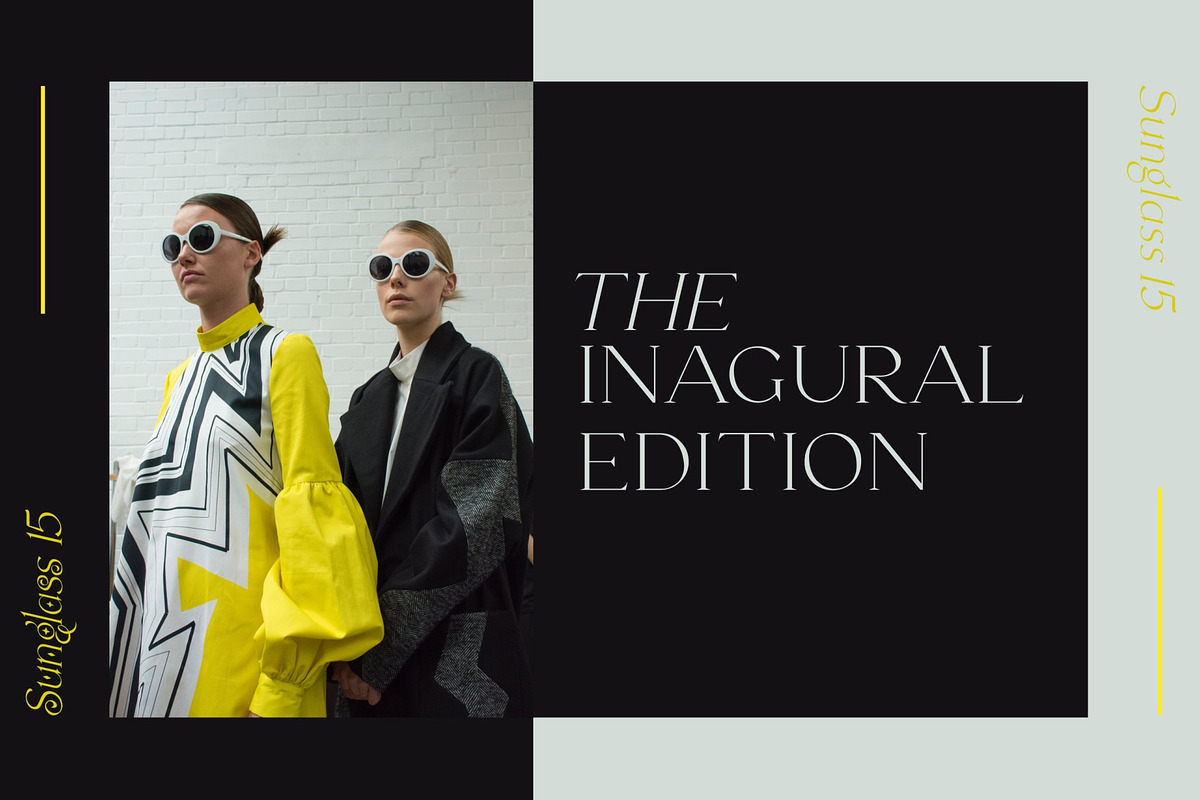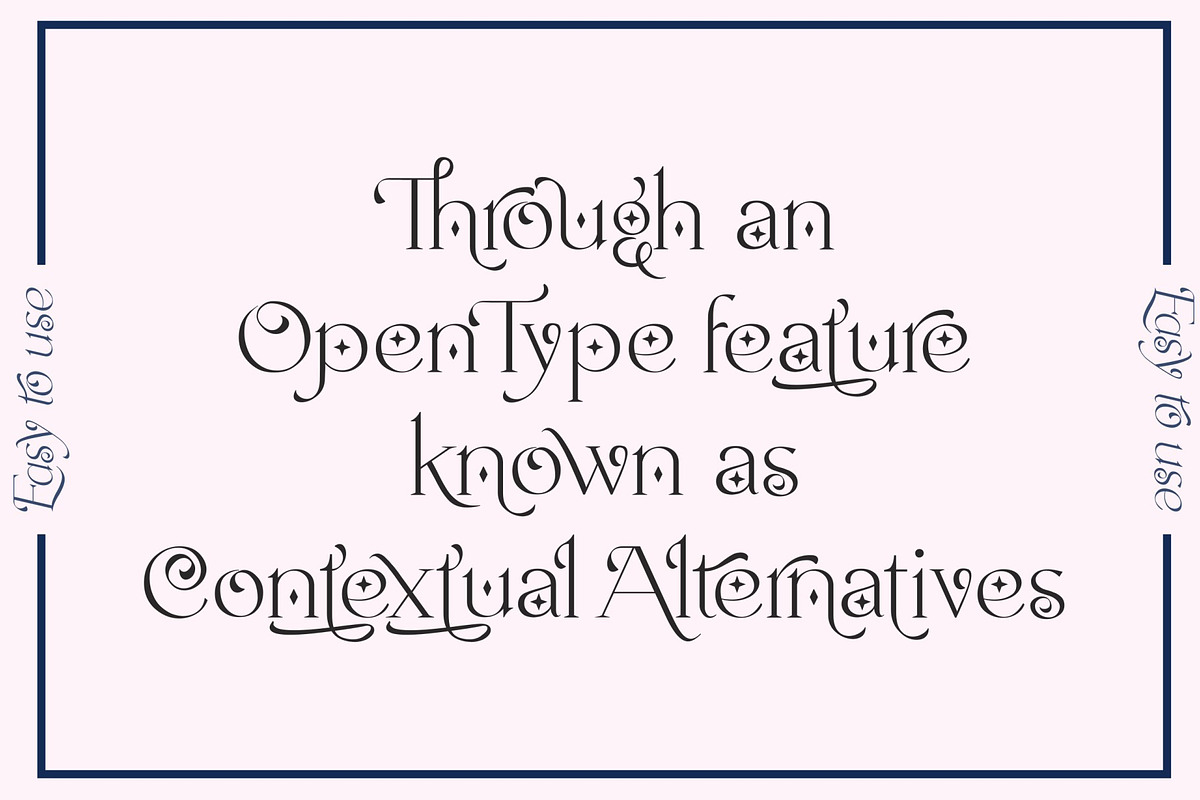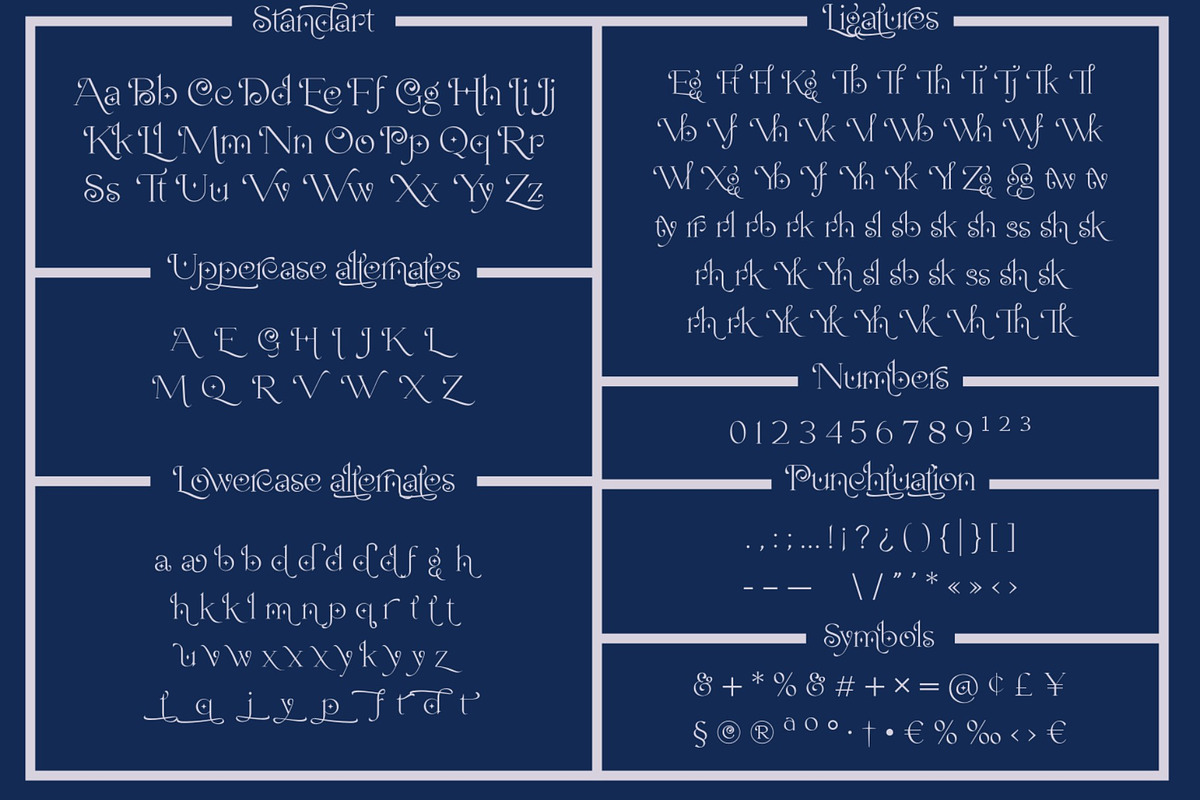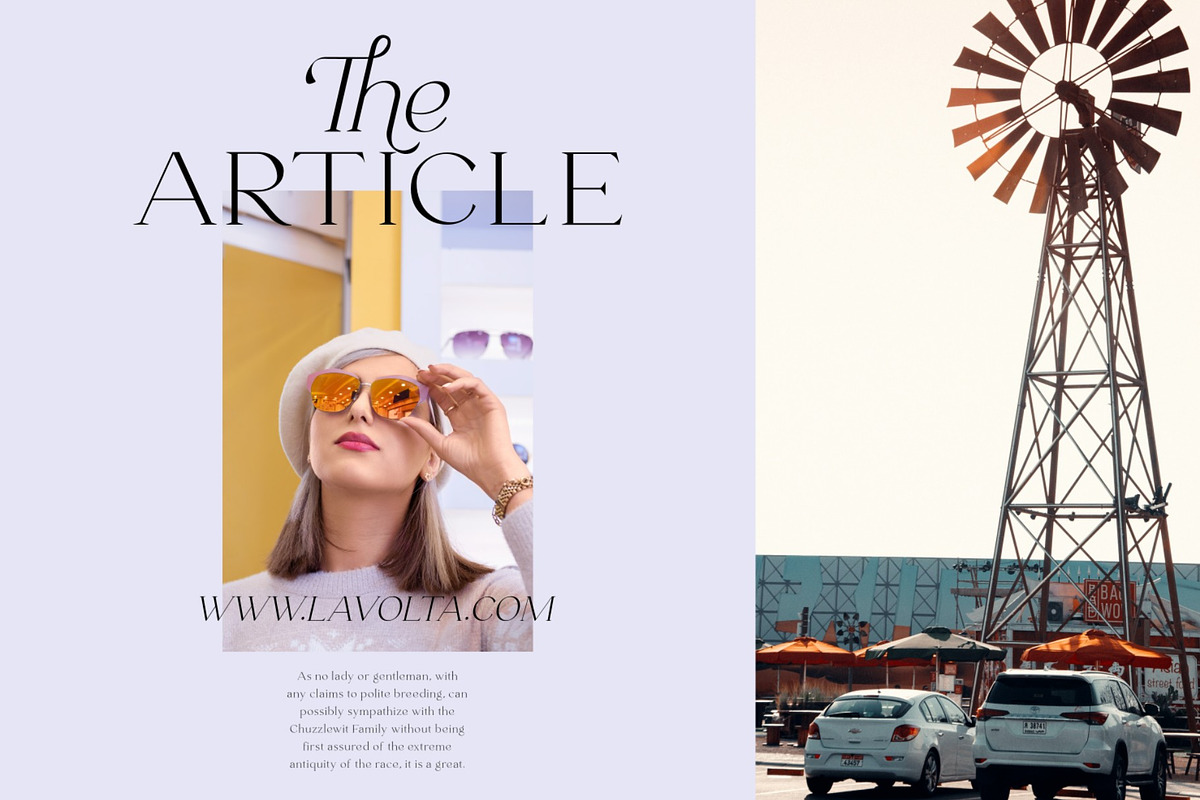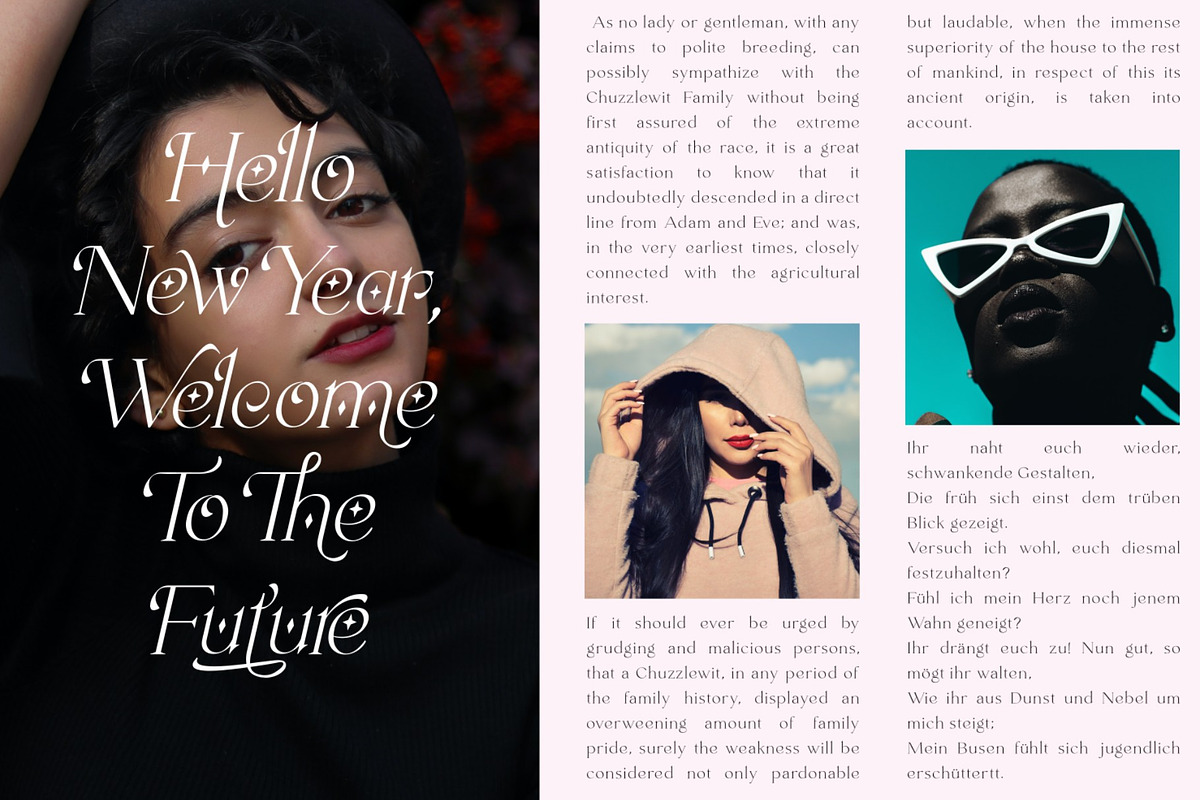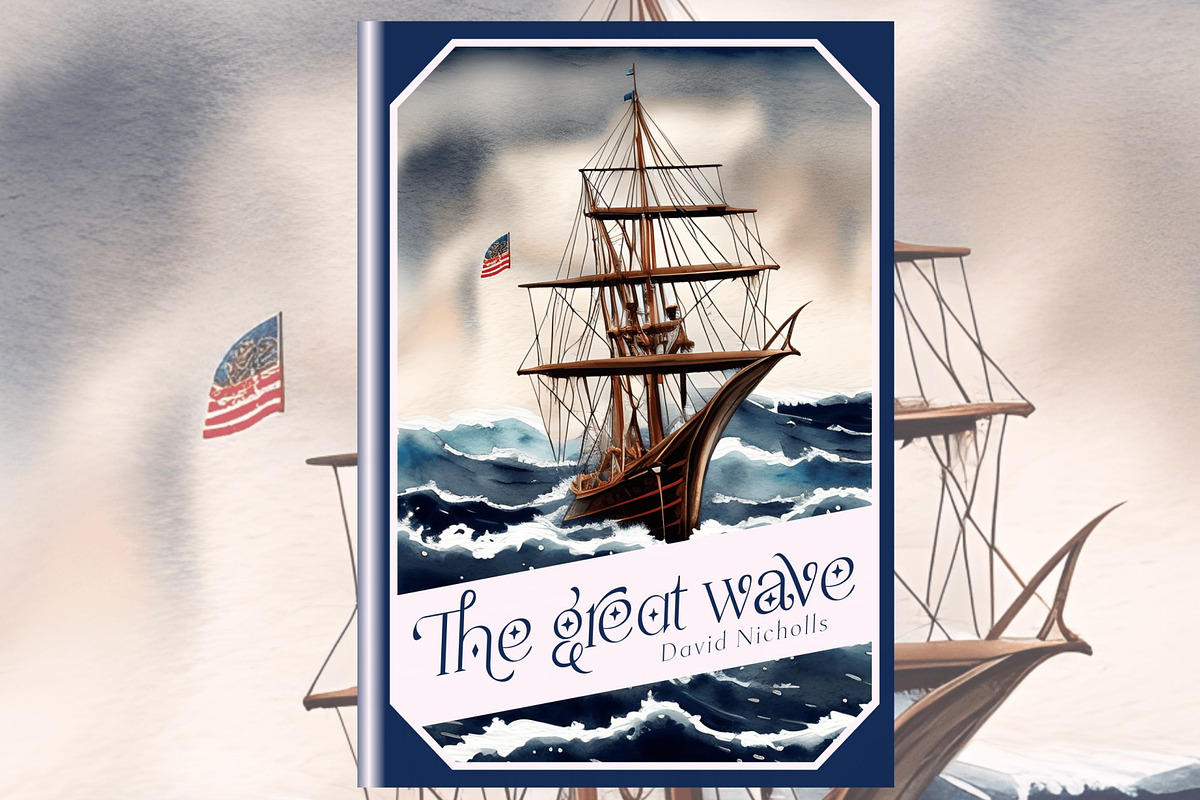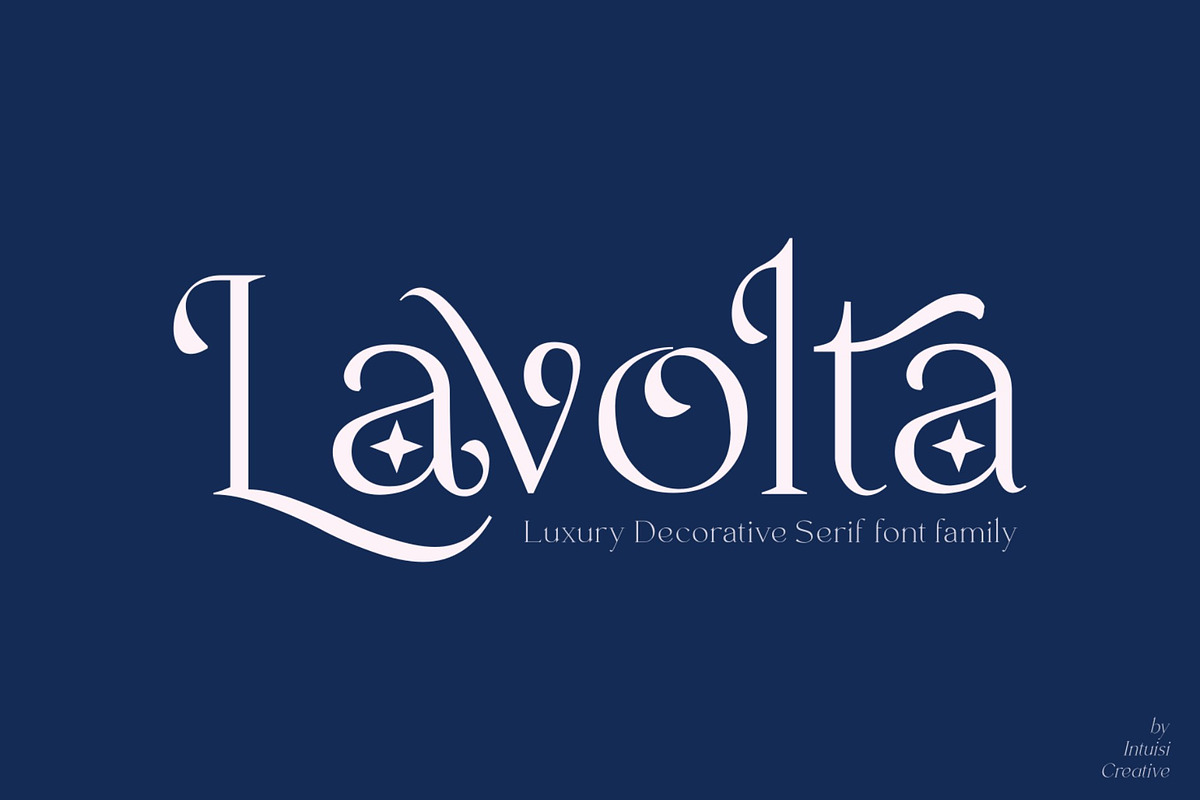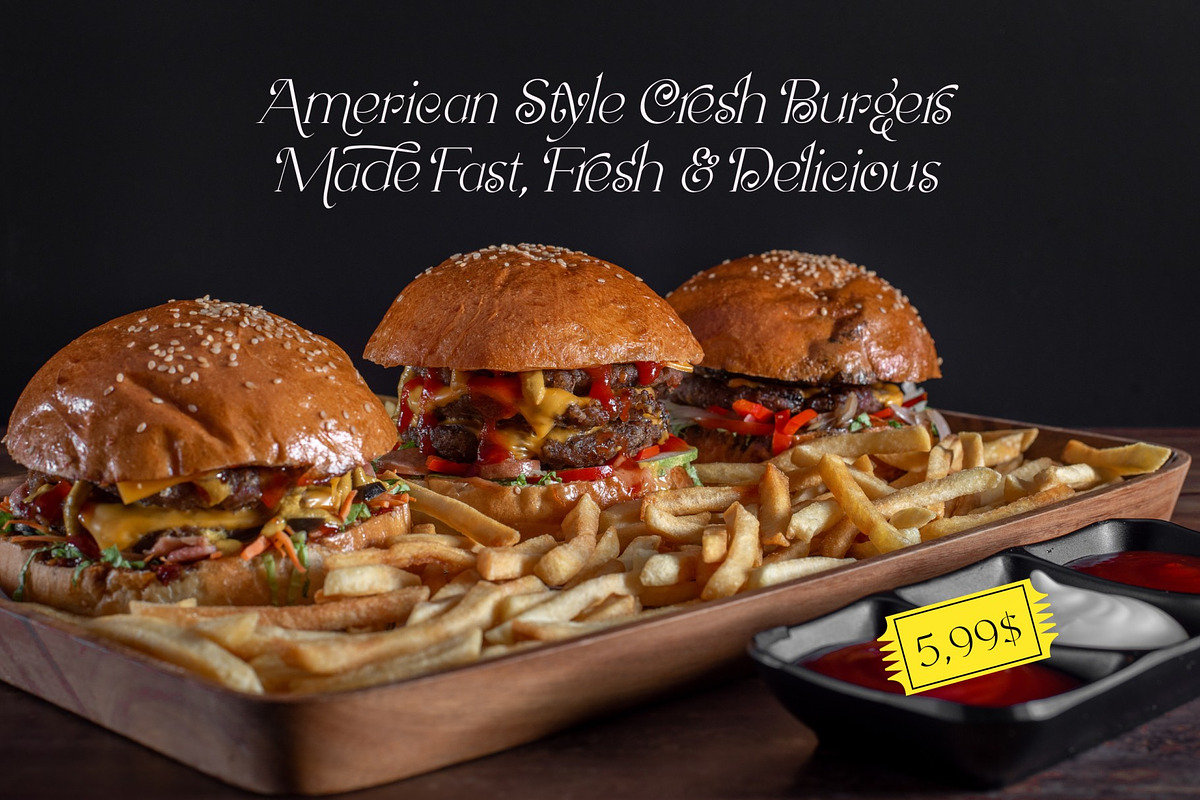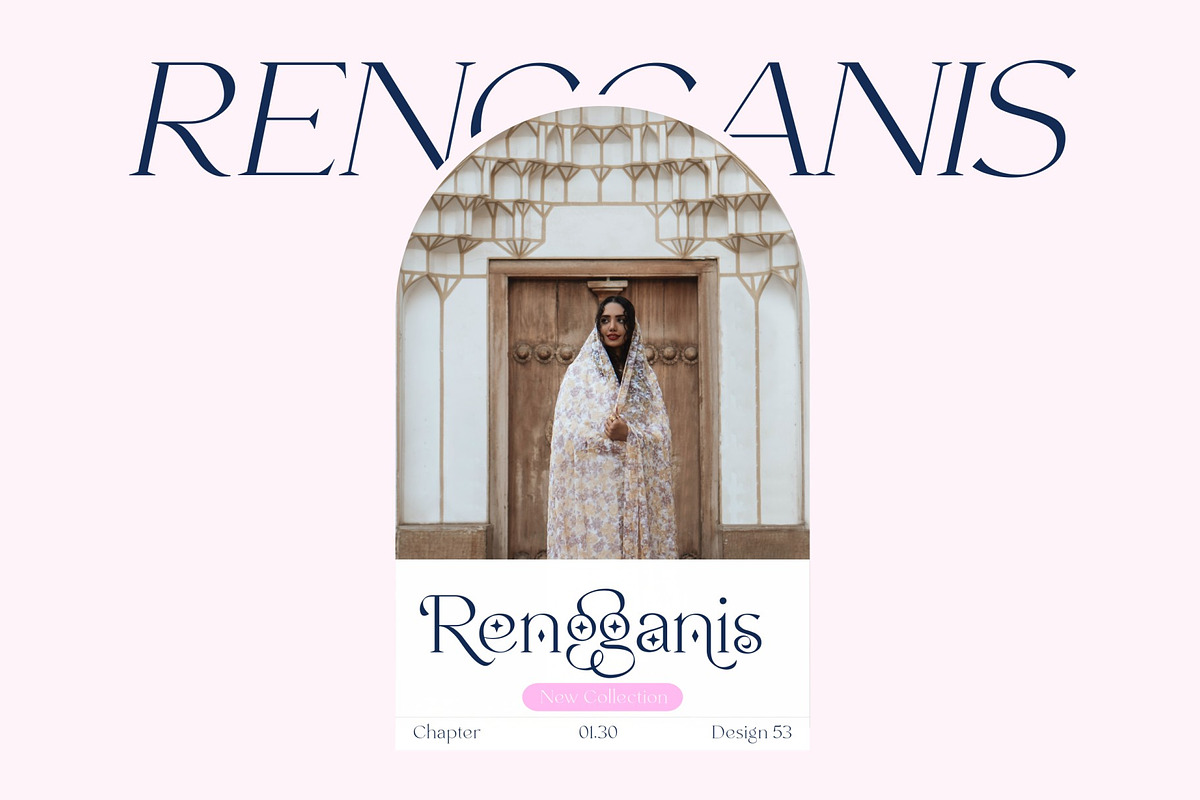
Lavolta - Decorative Font Family
Lavolta is a fancy and functional serif font family featuring two distinct style combinations. Lavolta has a modern style that's great for any project. Lavolta Swash has a slightly vintage style, has 130+ alternative characters, comes with the Contextual Alternatives (CALT) feature, and is PUA coded so all characters are easily accessible. Lavolta Swash Decoratif with stars creates a lively and festive atmosphere. I hope you enjoy it. Copyright Intuisi Creative